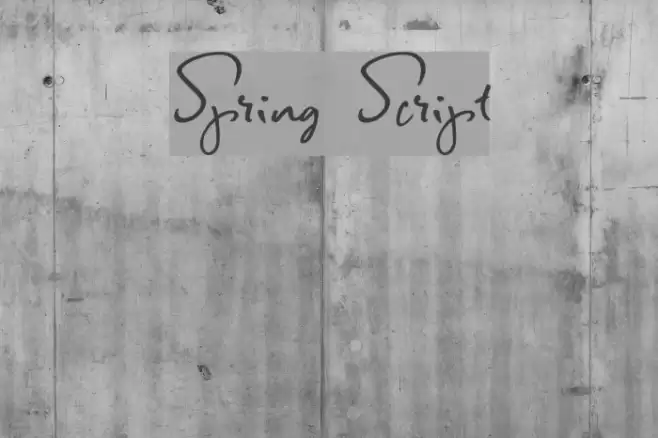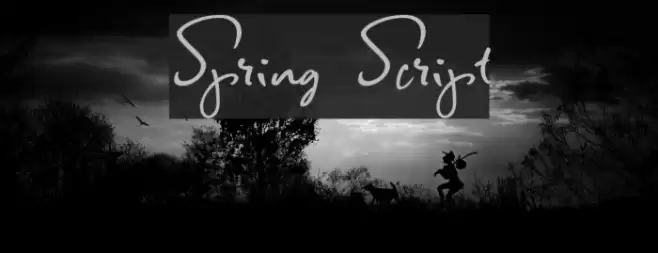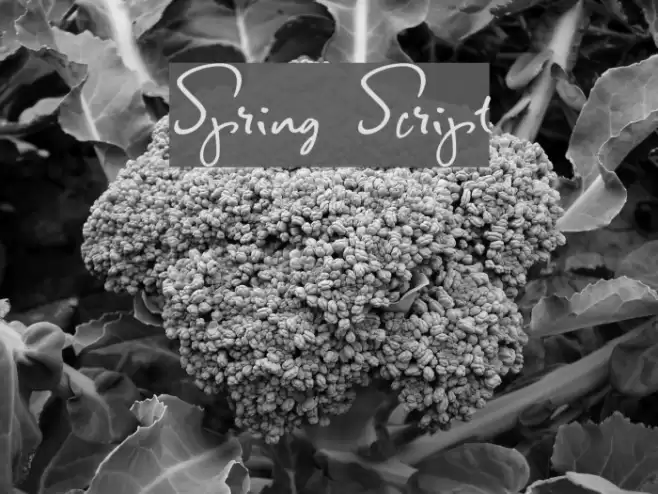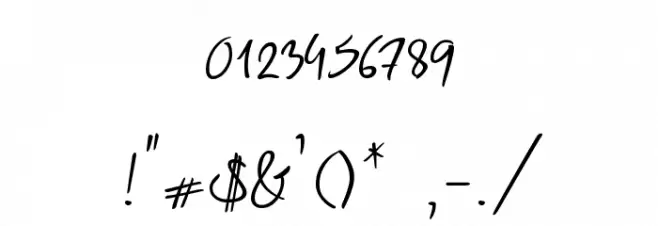
Spring Script Font
Spring Script Description
This font features a lively and dynamic script style, characterized by its fluid and flowing letterforms. The uppercase letters are bold and expressive, with a playful yet elegant flair, while the lowercase letters maintain a consistent rhythm and smooth connections. The numerals are distinct and easily legible, complementing the overall aesthetic. Special characters are thoughtfully designed, adding to the font's versatility. The strokes vary in thickness, providing a medium contrast that enhances readability without sacrificing style. This font exudes a sense of creativity and spontaneity, making it ideal for projects that require a personal touch.
A lively and dynamic script font with fluid, flowing letterforms and medium contrast from Handwritten fonts.
- Proposed Projects: Ideal for invitations, greeting cards, branding, and creative projects that require a personal and artistic touch.
- Use Case: Logos, Invitations, Greeting Cards